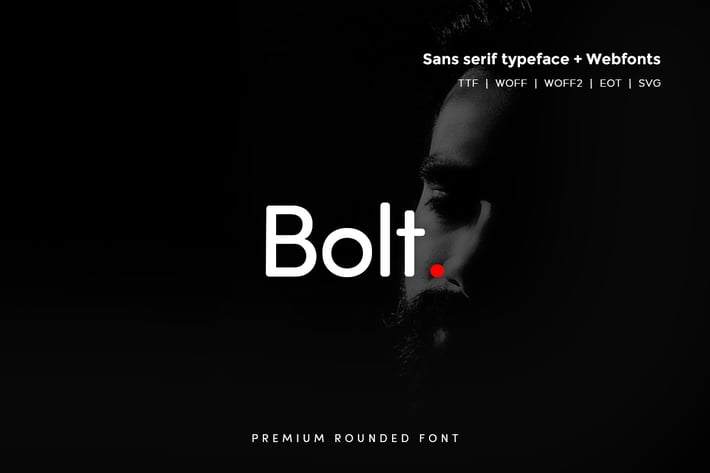
Bolt Rounded - Modern Typeface + WebFont
Bolt Rounded Typeface
Bolt Rounded is a modern and Minimal Sans Serif typeface, Bolt Sans can keep the minimalism at its level best and is a Perfect choice for Creative and Classic Typography Designs.
Font Designed and Crafted by Adam Johns & Errick (Old Font Factory 2009 ), Distributed by Webhance Studio.